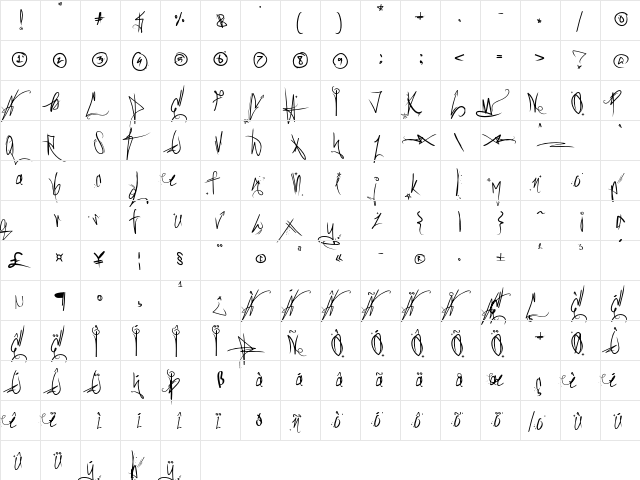
Sick Capital Vice Regular
Design Context for Sick Capital Vice Typeface
Sick Capital Vice is a composed and adaptable typeface that performs quietly and consistently across a wide range of design contexts.
Pro Tip: Use Sick Capital Vice in both headline and body roles to test its range before committing to a single application.